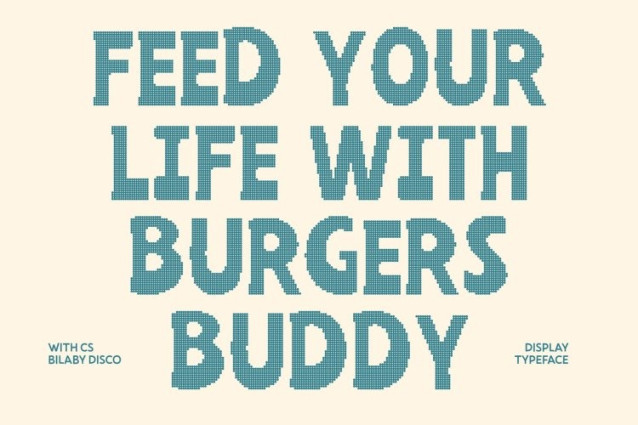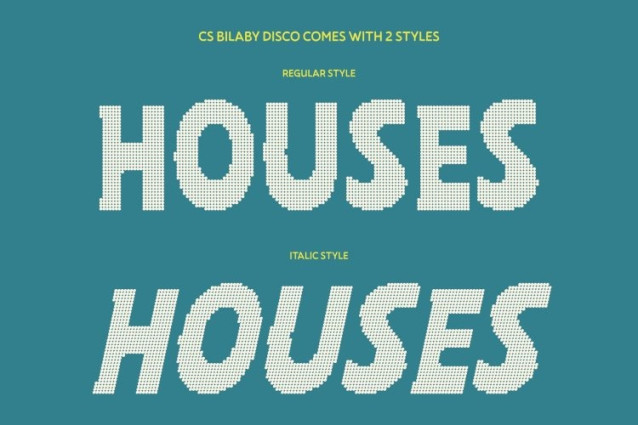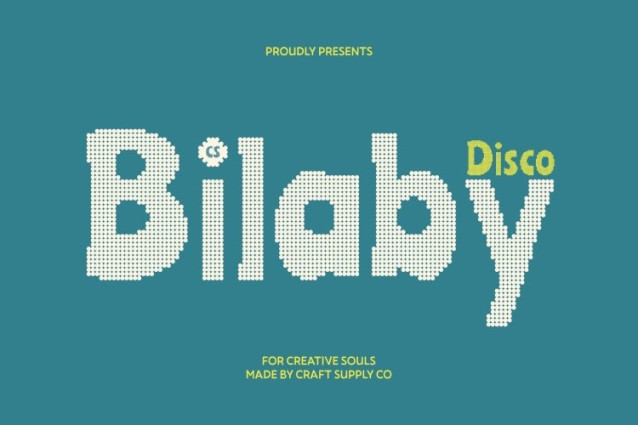
CS Bilaby Disco Font
CS Bilaby Disco Font This is a modern display font that captures the warmth of handwritten expression with a clean, contemporary structure now infused with vibrant disco energy. Its neat letterforms and organic flow feel lively and welcoming, as if each word is dancing with personality under flashing lights.
Expressive, Cheerful, and Full of Festive Energy
Blending modern precision with playful spontaneity, this font radiates joy, movement, and celebration. The quirky shapes and smooth curves create a cheerful rhythm that feels energetic and fun, giving designs a sense of motion and upbeat party vibes inspired by the excitement of the dance floor.
Balanced Between Fun, Clarity, and Glamorous Appeal
While its handwritten style brings character and friendliness, this font maintains strong readability and visual balance. The disco touch adds sparkle and confidence without overpowering the design, making it perfect for layouts that need to feel playful yet polished.
Perfect for Creative Branding, Events, and Joyful Visuals
Ideal for titles, posters, branding, packaging, event designs, and social media content, this font shines in projects that celebrate fun and creativity. Whether for youthful brands, festive campaigns, or modern visuals with a joyful twist, this font delivers charm, energy, and irresistible personality in every letter.